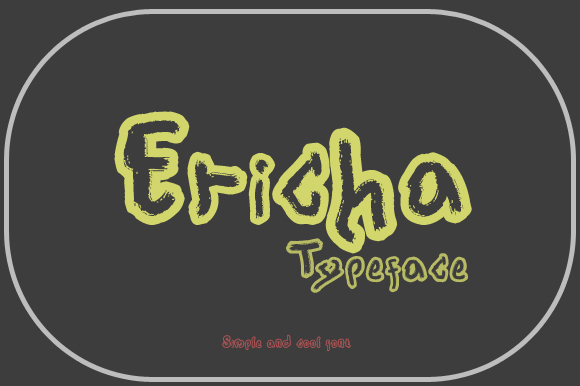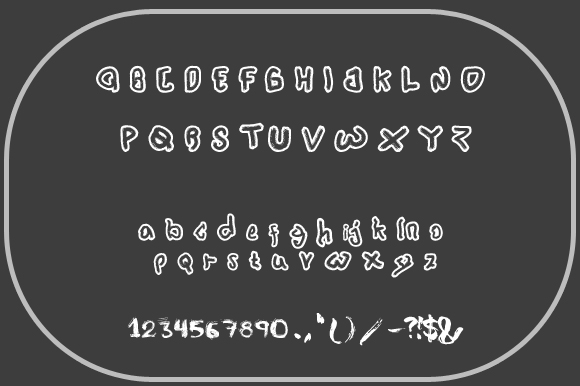
Discover the Unique Charm of Ericha Font by Gblack Id
Are you a designer or crafter looking for a font that adds a touch of elegance and sophistication to your projects? Look no further than the Ericha font by Gblack Id. This beautiful font features basic punctuation and is perfect for a variety of design applications, from crafting and scrapbooking to digital design and branding.
What is Ericha Font?
Ericha font is a stunning typeface designed by Gblack Id, a talented font designer known for creating unique and visually appealing fonts. Ericha font is a carefully crafted font that features a distinctive and elegant style, making it perfect for designers and crafters who want to add a touch of sophistication to their projects.
Key Features of Ericha Font
So, what makes Ericha font so special? Here are some of its key features:
- Basic Punctuation: Ericha font features basic punctuation, making it easy to use for a variety of design applications.
- Elegant Style: The font has a distinctive and elegant style that adds a touch of sophistication to any project.
- Versatile: Ericha font is perfect for a range of design applications, from crafting and scrapbooking to digital design and branding.
Uses for Ericha Font
Ericha font is a versatile font that can be used for a variety of design applications, including:
- Crafting and Scrapbooking: Add a touch of elegance to your scrapbook pages or craft projects with Ericha font.
- Digital Design: Use Ericha font to create stunning digital designs, such as social media graphics, blog headers, and more.
- Branding: Ericha font is perfect for branding projects, such as logos, business cards, and letterheads.
- Signage: Use Ericha font to create eye-catching signs and displays.
Why Choose Ericha Font?
So, why should you choose Ericha font for your next design project? Here are just a few reasons:
- Unique Style: Ericha font has a unique and elegant style that will set your projects apart from the rest.
- Ease of Use: The font features basic punctuation, making it easy to use for a variety of design applications.
- High-Quality Design: Ericha font is designed with high-quality and attention to detail, ensuring that your projects look professional and polished.
Tips for Using Ericha Font
Here are a few tips for using Ericha font in your design projects:
- Experiment with Sizes: Try using Ericha font in different sizes to create visual interest and hierarchy in your designs.
- Pair with Other Fonts: Ericha font pairs well with other fonts, so don’t be afraid to experiment with different font combinations.
- Use for Headings and Titles: Ericha font is perfect for headings and titles, adding a touch of elegance and sophistication to your designs.
In conclusion, Ericha font by Gblack Id is a stunning and versatile font that is perfect for designers and crafters looking to add a touch of elegance and sophistication to their projects. With its unique style, ease of use, and high-quality design, Ericha font is a great choice for a variety of design applications. Whether you’re working on a crafting or scrapbooking project, or a digital design or branding project, Ericha font is sure to impress.